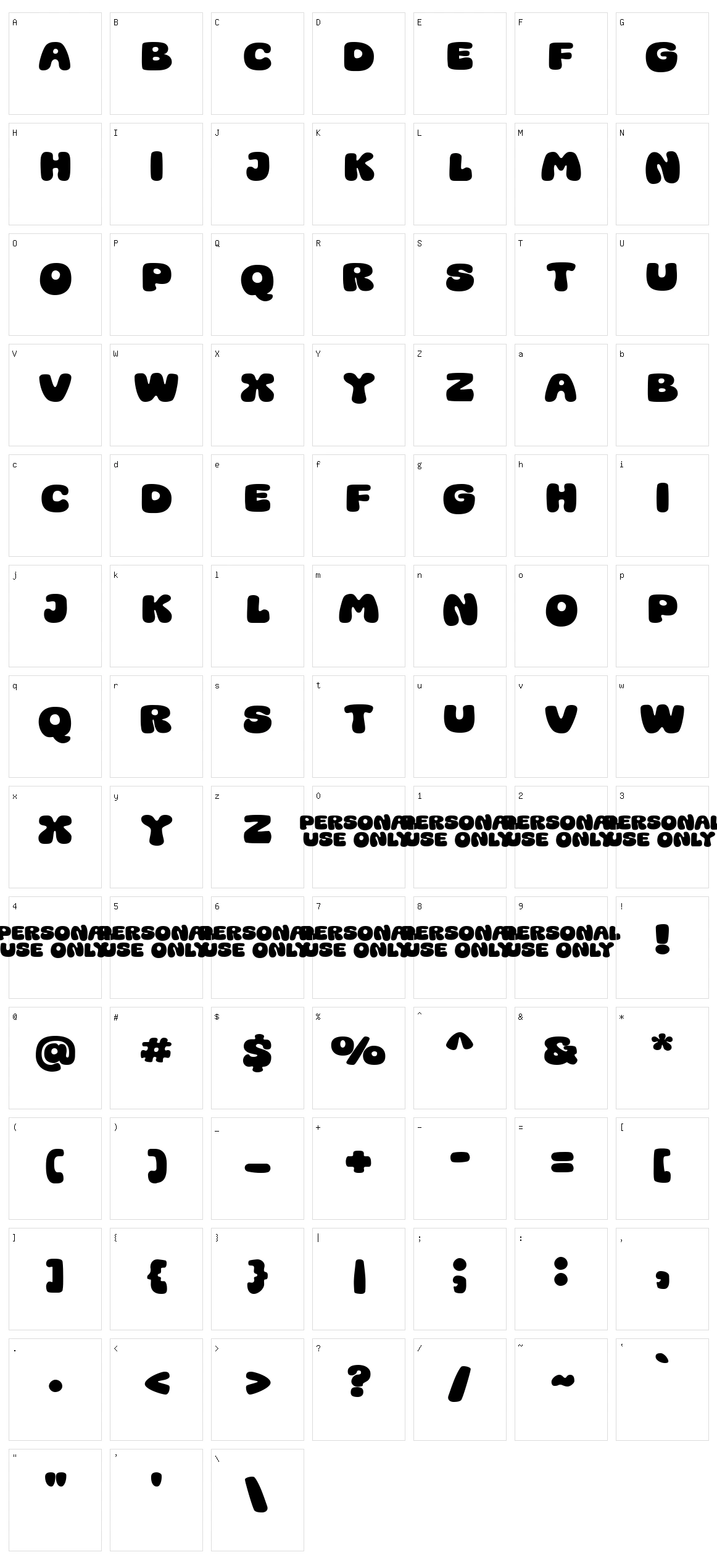
Super Daisy is a round, bold, heavy, and chubby font that is perfect for making a statement. With its thick, curved letters, Super Daisy is both eye-catching and playful. It is a great choice for headlines, logos, and other attention-grabbing designs.